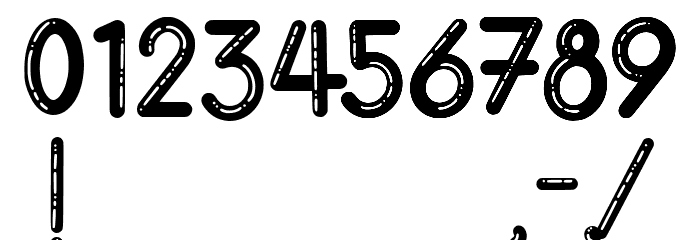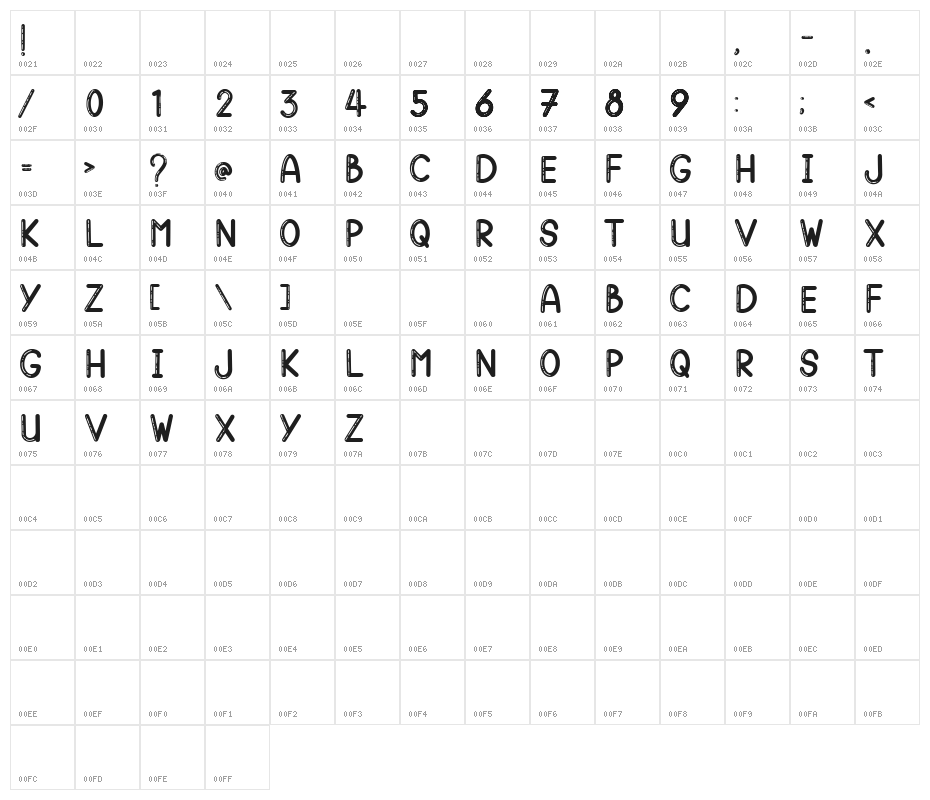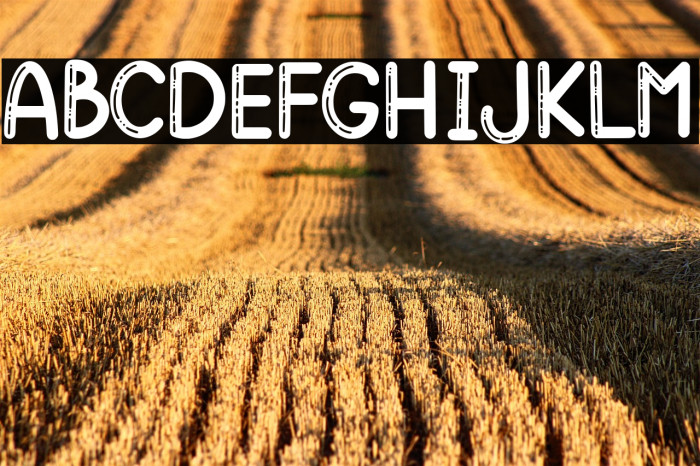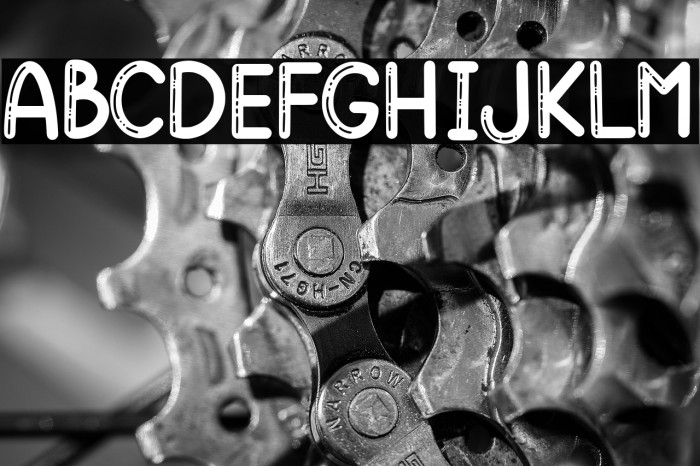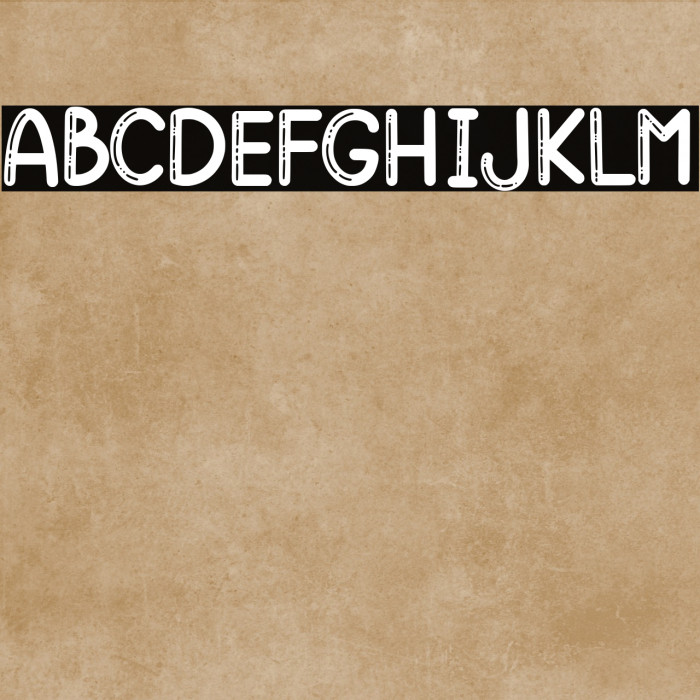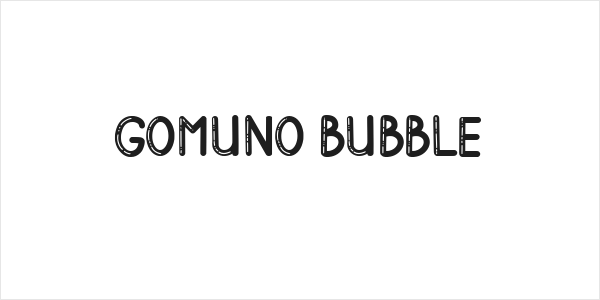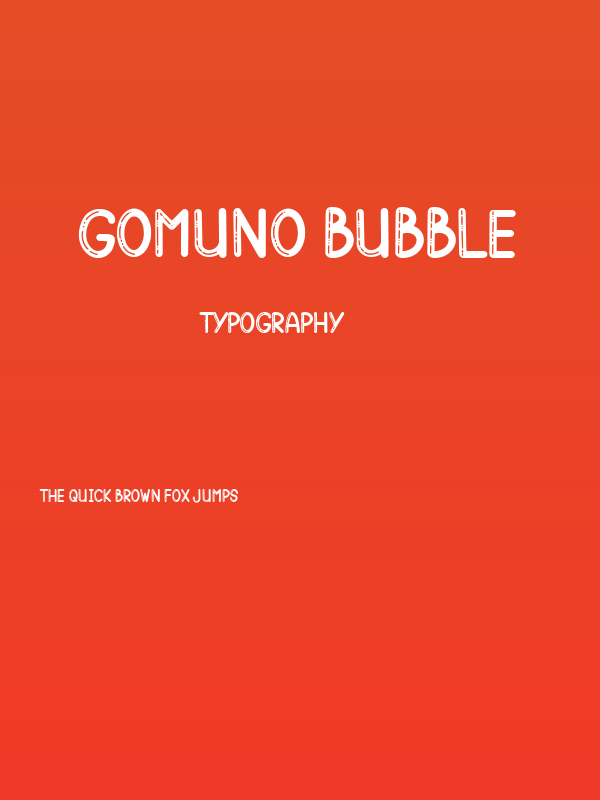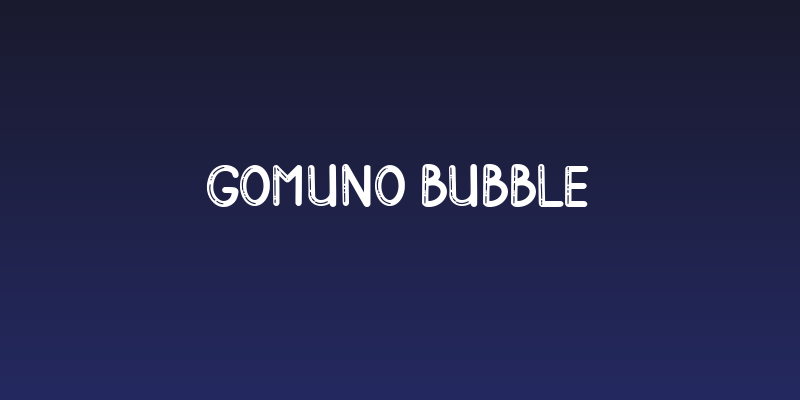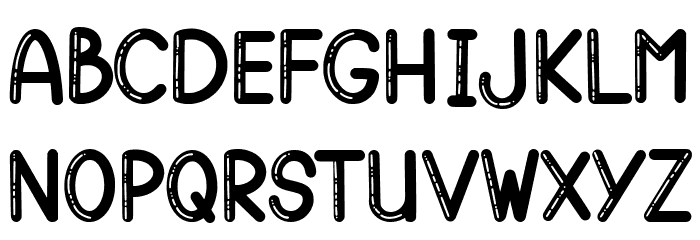
Gomuno Bubble Font
This playful and whimsical font features rounded, bubble-like characters that give it a fun and informal appearance. The letters are bold and have a hand-drawn quality, with a consistent stroke width that adds to its casual charm. The font includes both uppercase and lowercase letters, as well as numbers and a selection of special characters. Its unique style makes it stand out, with a slightly uneven baseline that enhances its playful nature. The font is perfect for projects that require a lighthearted and approachable feel.
| Overall Style | Playful, Informal |
| Proposed Projects | Ideal for children's books, playful branding, party invitations, and casual social media graphics. |